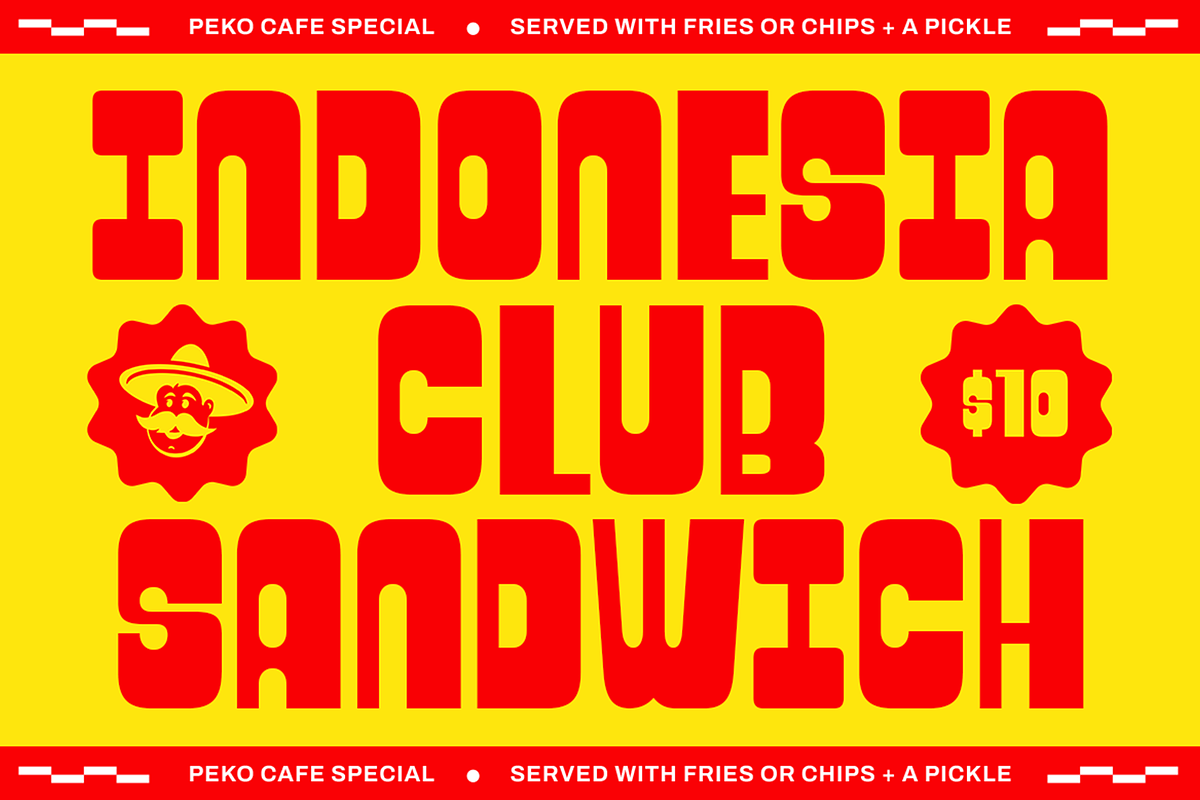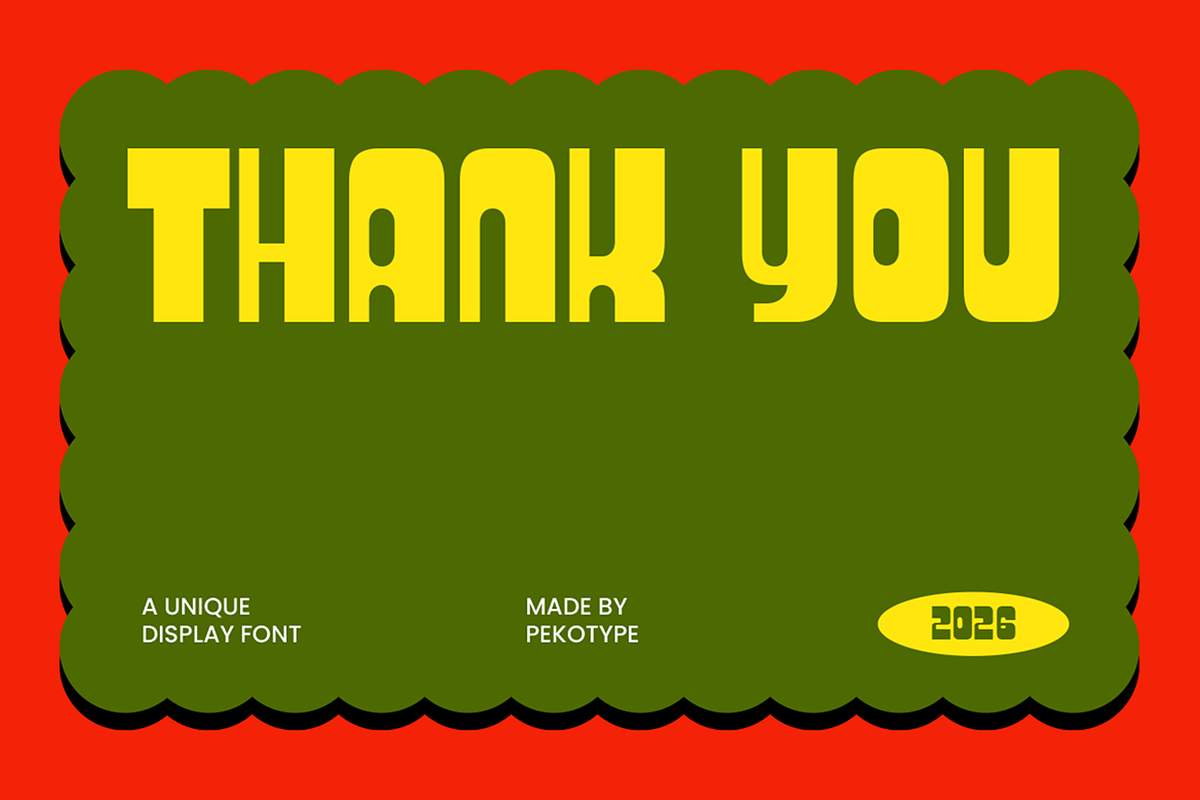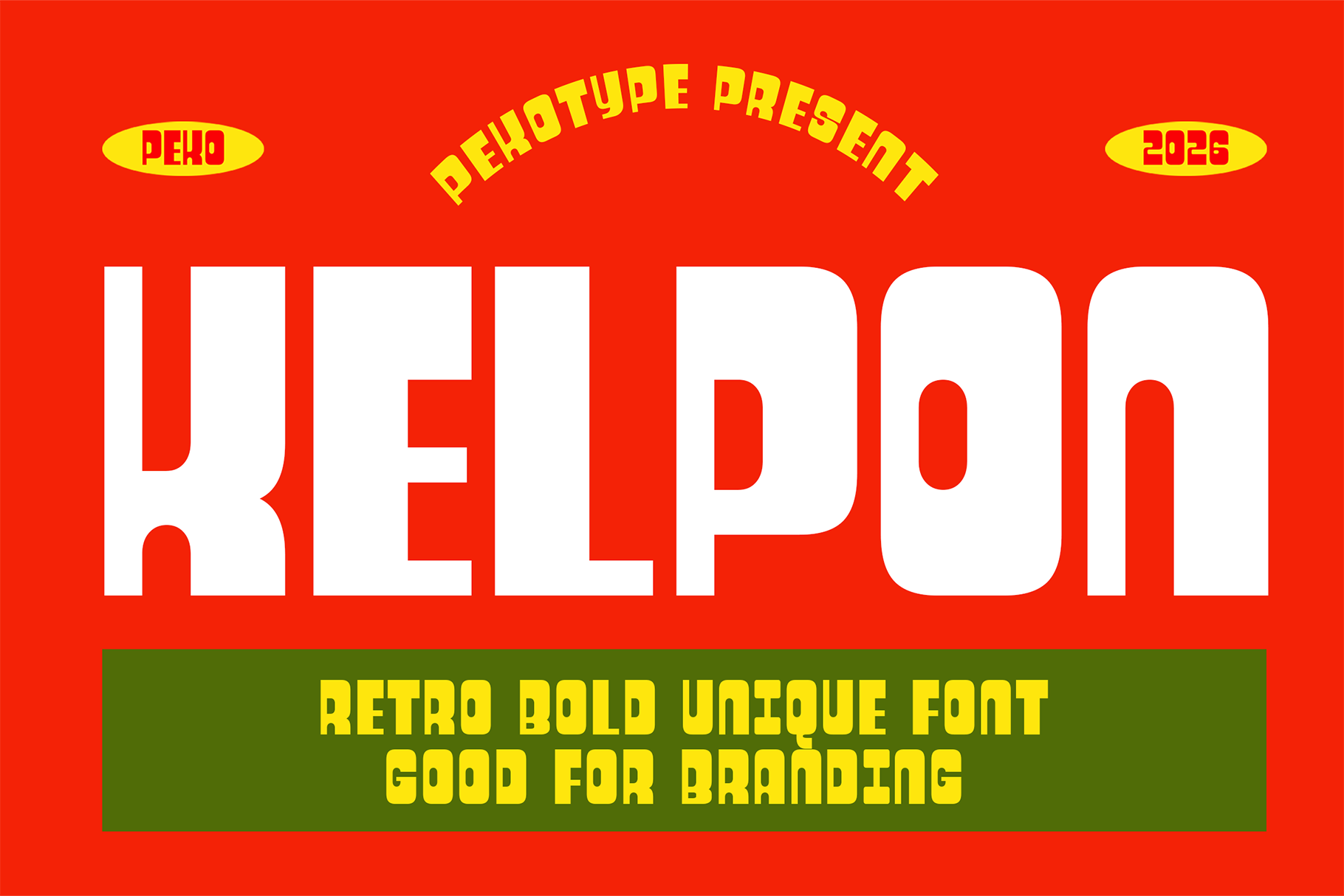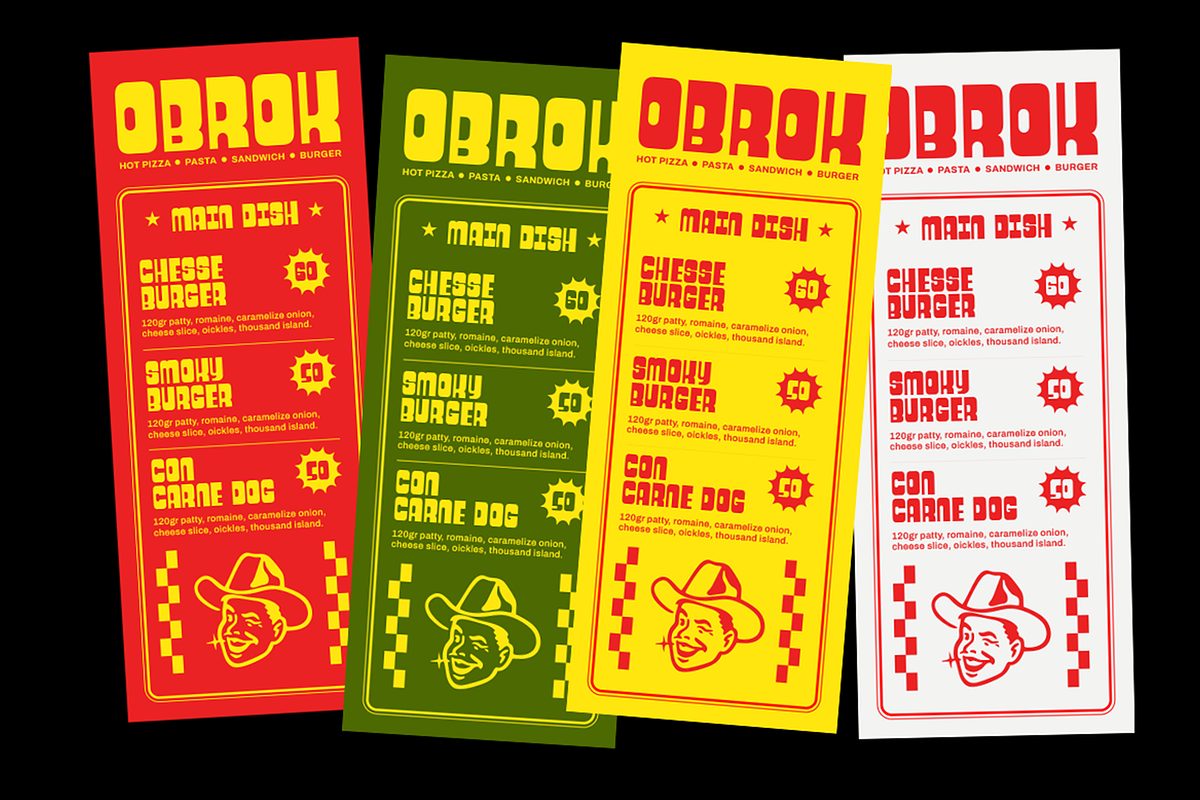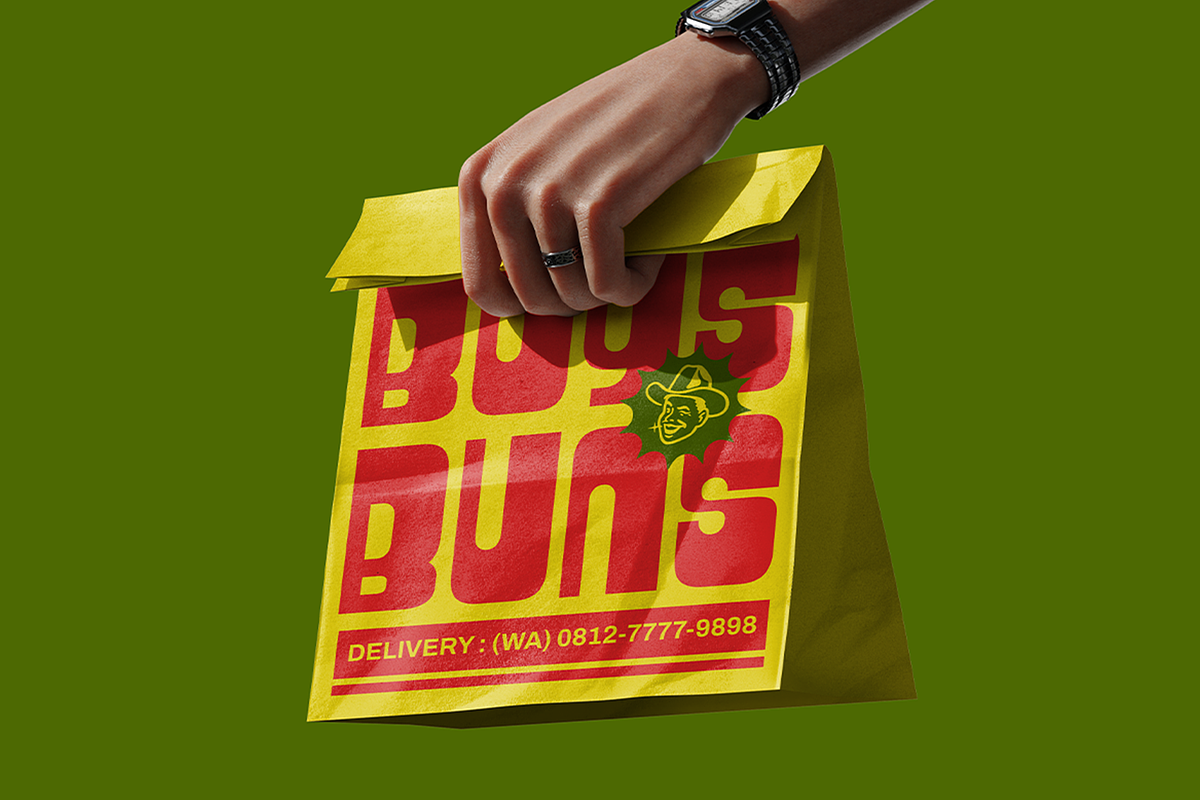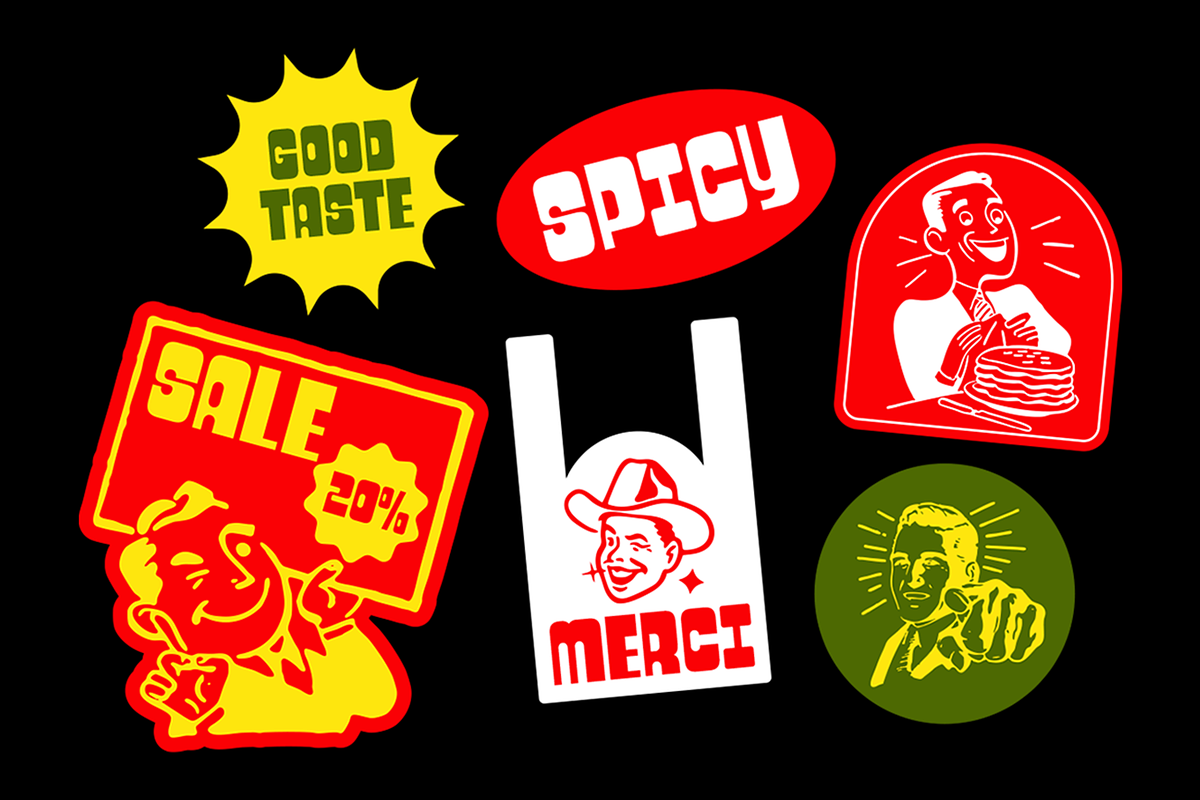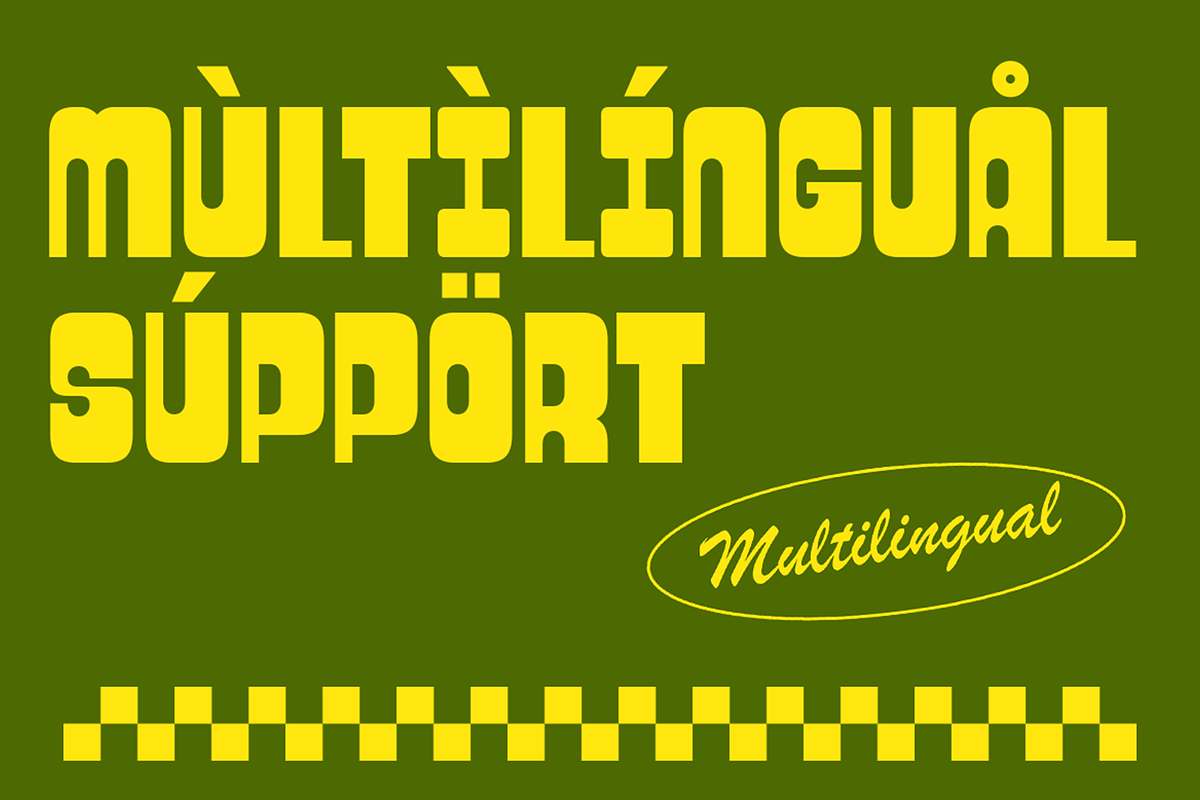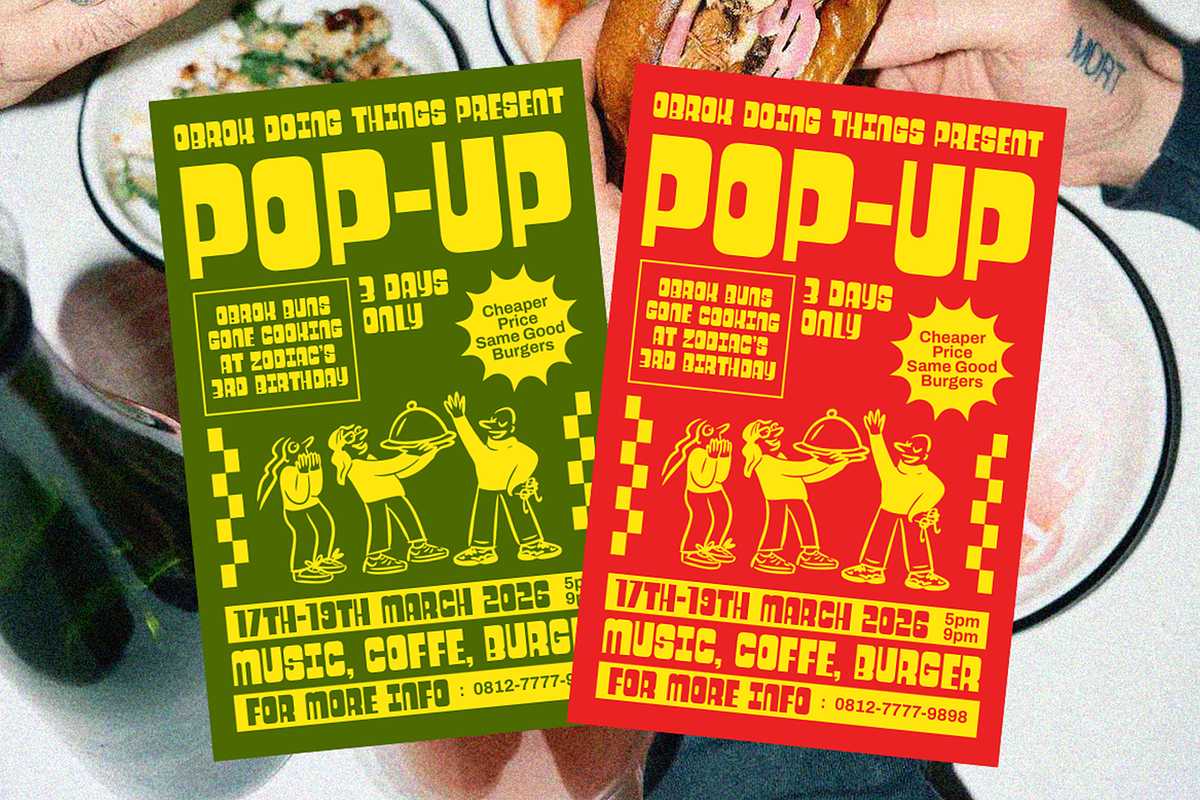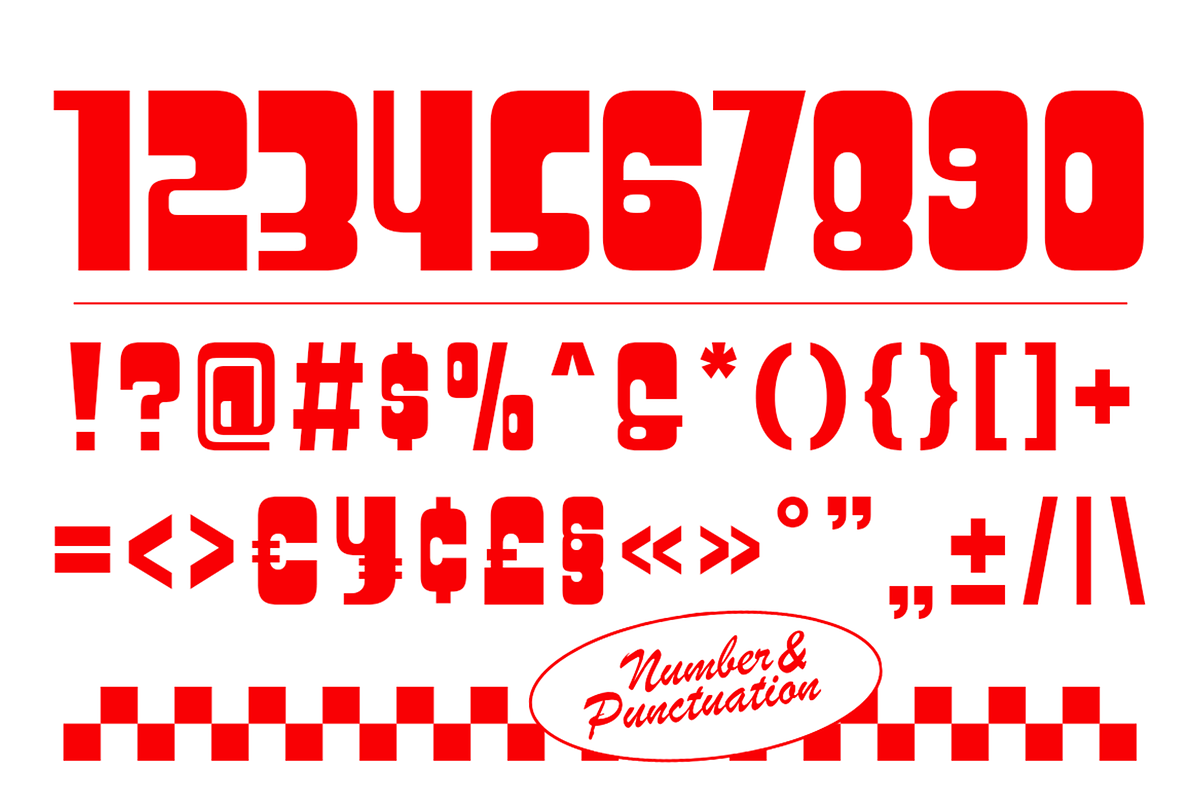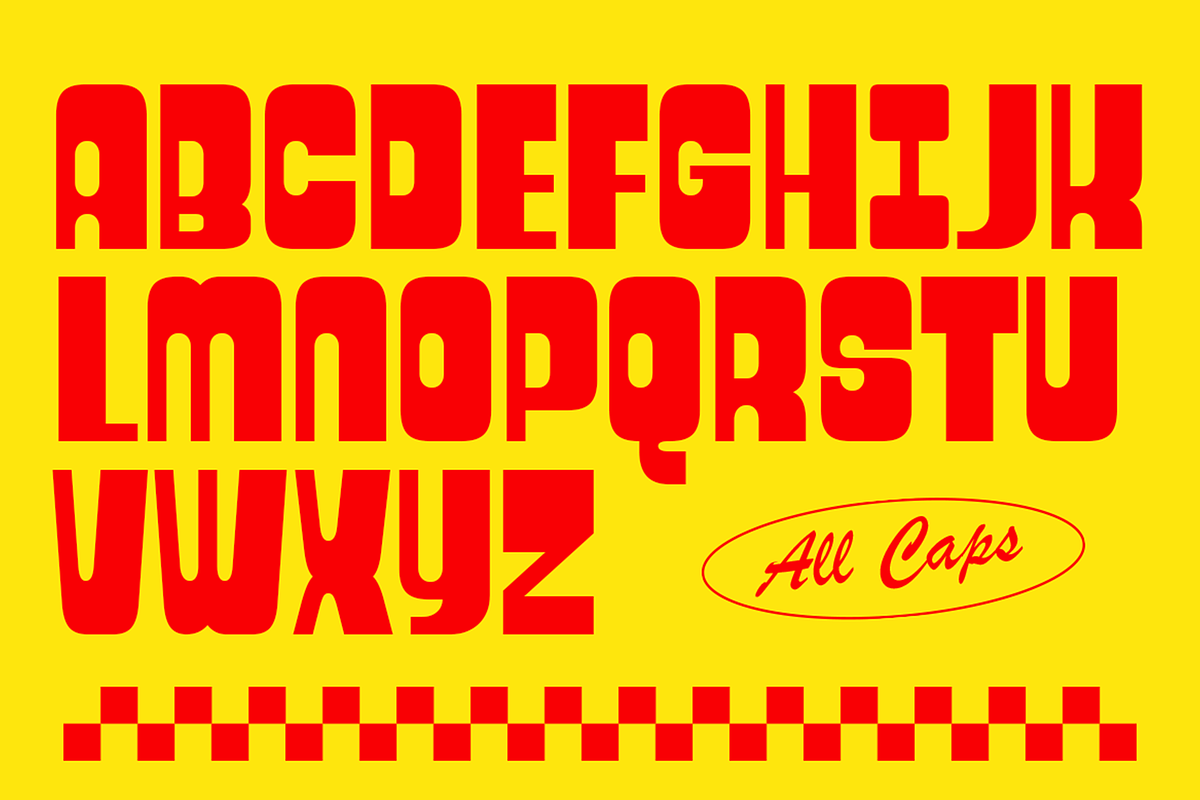
Kelpon -Unique Display Branding Font
KELPON is a chunky retro display font bursting with bold personality and playful attitude. Its thick letterforms, compact spacing, and vintage-inspired shapes create a loud visual rhythm that instantly grabs attention. KELPON feels nostalgic yet fresh — like classic signage reimagined for modern design. The strong geometry and quirky details make every word look expressive, energetic, and full of character while staying surprisingly readable.
Built for high-impact visuals, KELPON shines in branding, logos, posters, packaging, food graphics, social media campaigns, merchandise, advertising, and promotional design. It’s perfect for projects that want to feel fun, rebellious, and unforgettable — especially food brands, streetwear, pop culture visuals, and youth marketing. If you need a display typeface that feels retro, loud, and confident, KELPON delivers instant visual flavor.
- All Caps
- Number, Symbol, & Punctuation